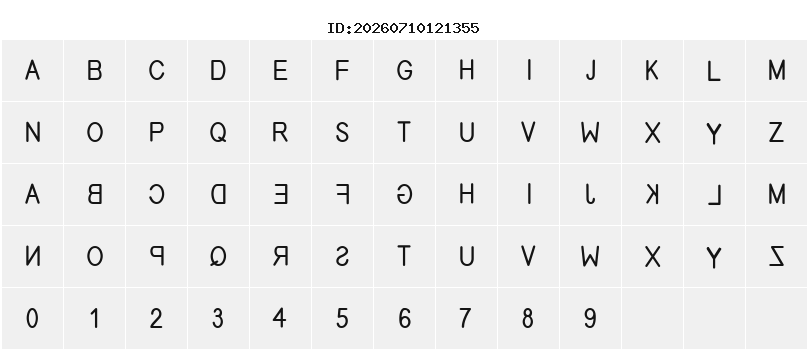
• Font Name: EFITYPE REVERSE
• Designer: Raúl Pérez Canseco
• Description: EFITYPE Regular is a font designed by Raúl Pérez Canseco in 2012 Grafito Design
About EFITYPE REVERSE.ttf
EFITYPE REVERSE.ttf is a modern, elegant sans-serif font designed for ultimate readability and visual harmony. Perfect for branding, headlines, web design, and print materials.